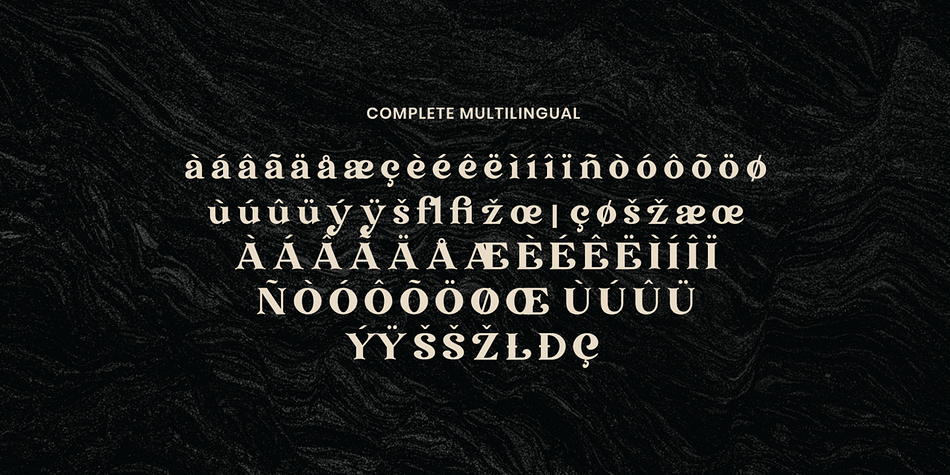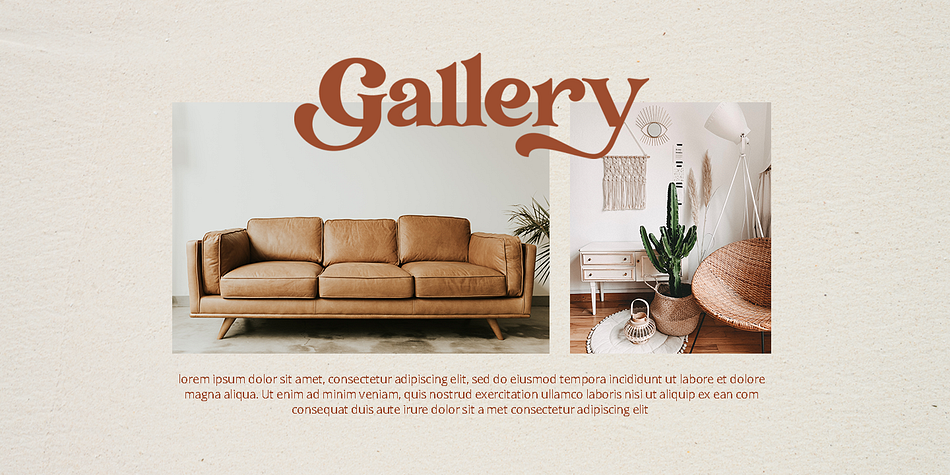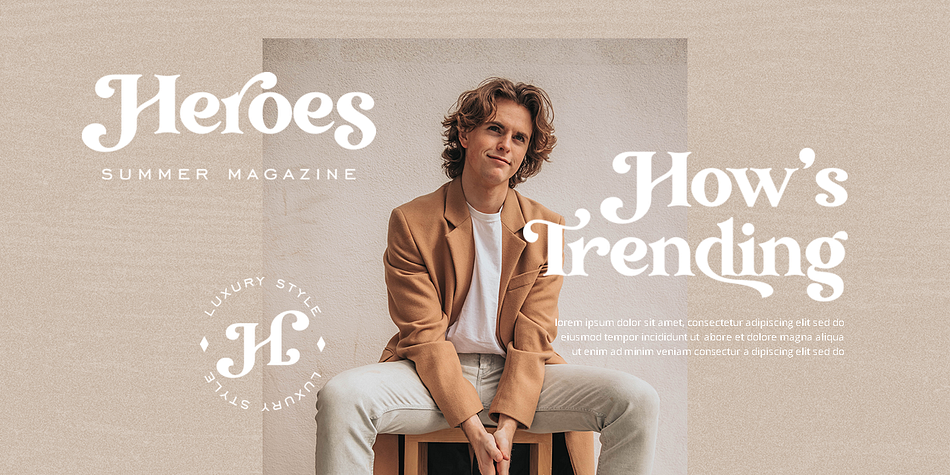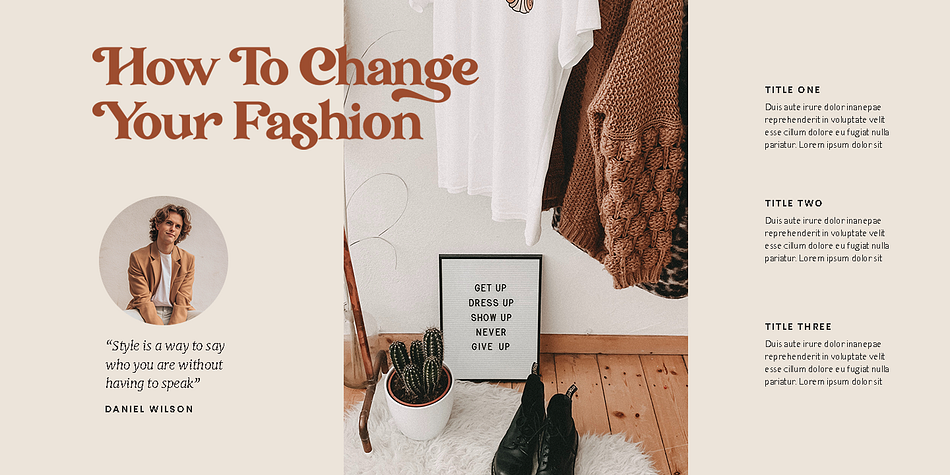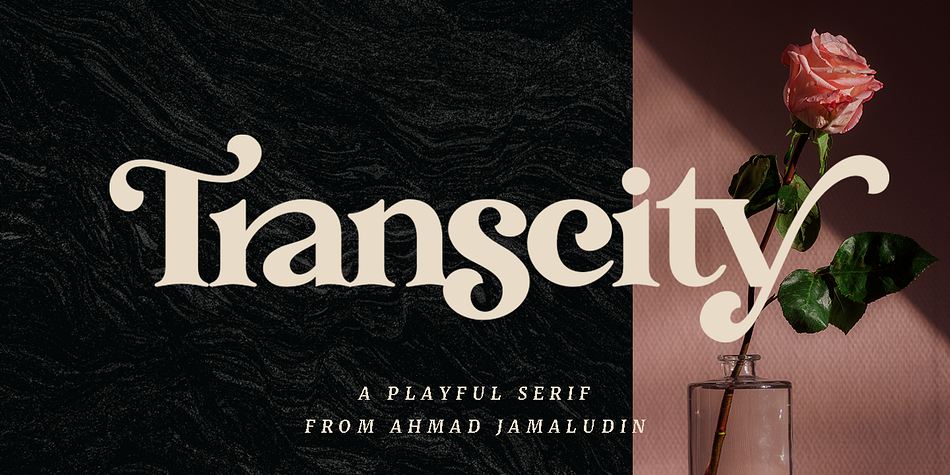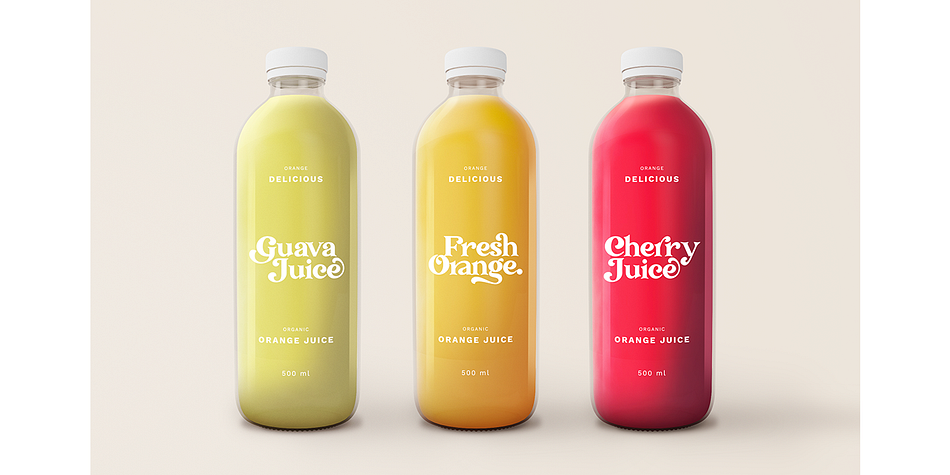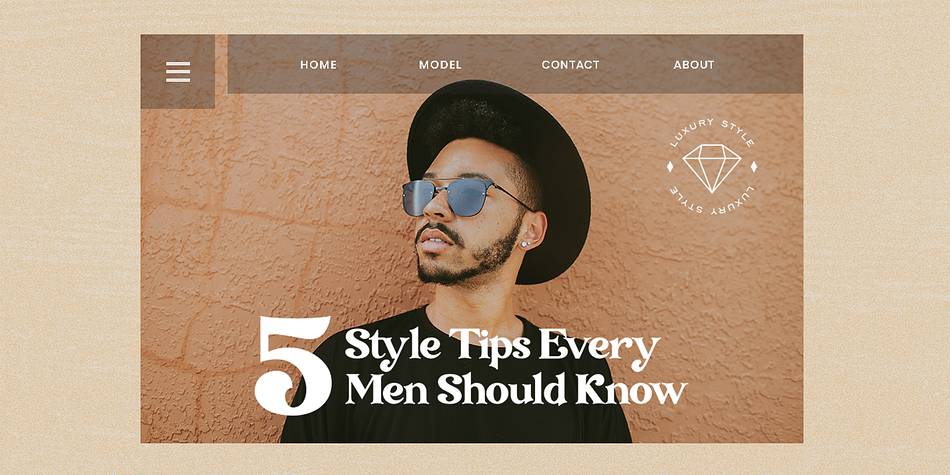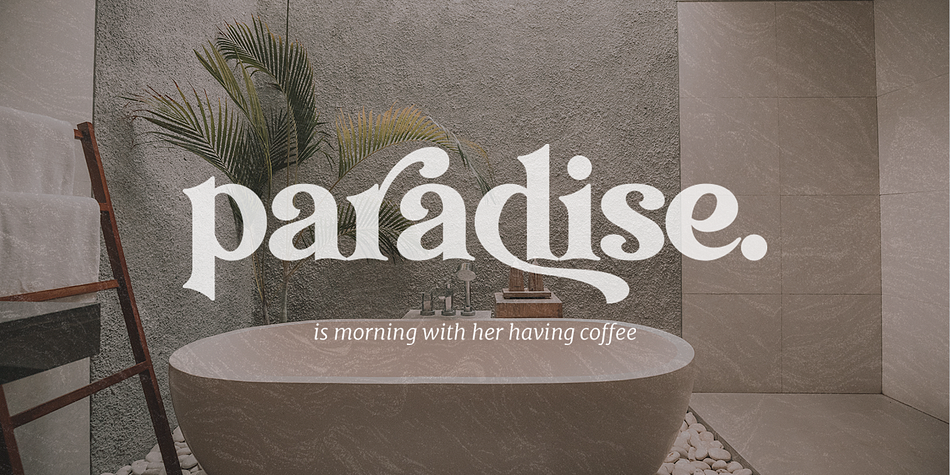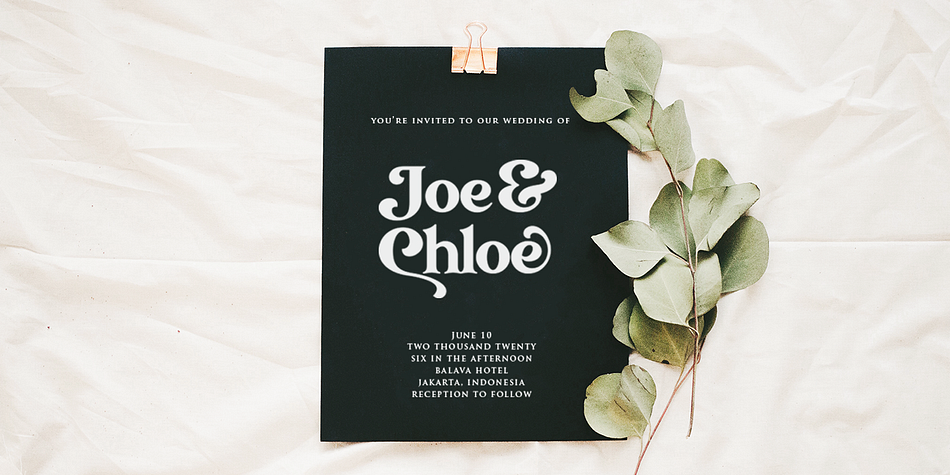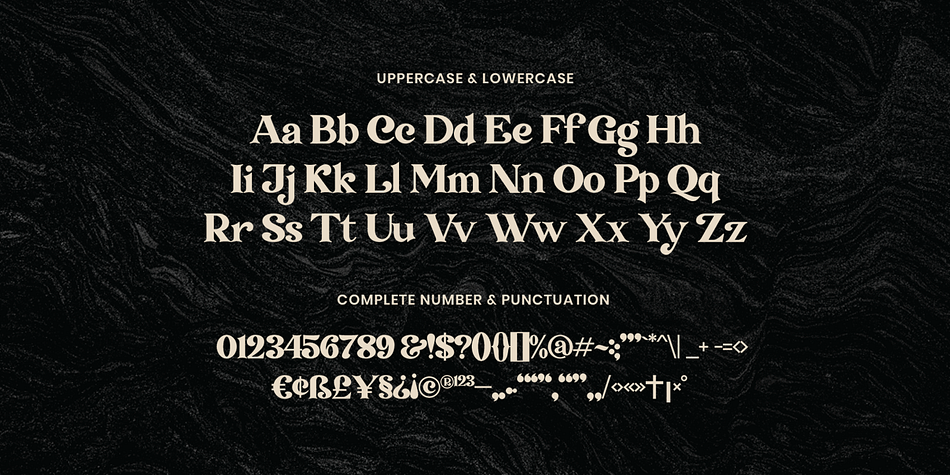
Transcity
Transcity is a display serif and retro font family published by Dharmas Studio.
Say hello to my serif font, Transcity!
Transcity is a Bold Playful Elegant Modern vintage font with beautiful ligatures, tons of special alternative glyphs, ornament and multilingual support. It’s a very versatile font that works great in large and small sizes.
This Beautiful font perfect for branding projects, Logo design, Clothing Branding, product packaging, magazine headers, or simply as a stylish text overlay to any background image.
- More than 100 beautiful swashes in this font
Multilingual Support :
à á â ã ä å æ ç è é ê ë ì í î ï ñ ò ó ô õ ö ø ù ú û ü ý ÿ š fl fi ž œ ı ç ø š ž æ œ À Á Â Ã Ä Å Æ È É Ê Ë Ì Í Î Ï Ñ Ò Ó Ô Õ Ö Ø Œ Ù Ú Û Ü Ý Ÿ Š Š ŽŁ Ð Ç